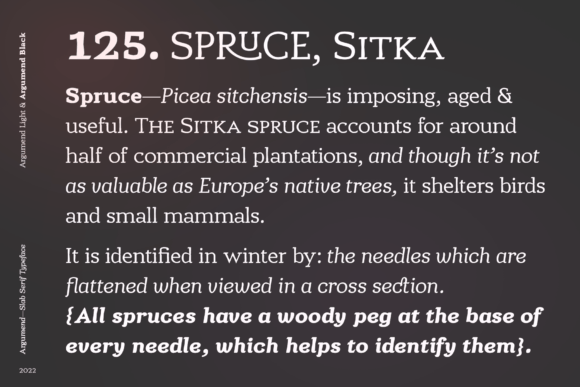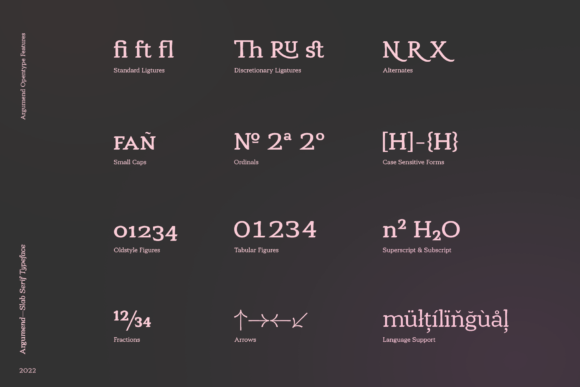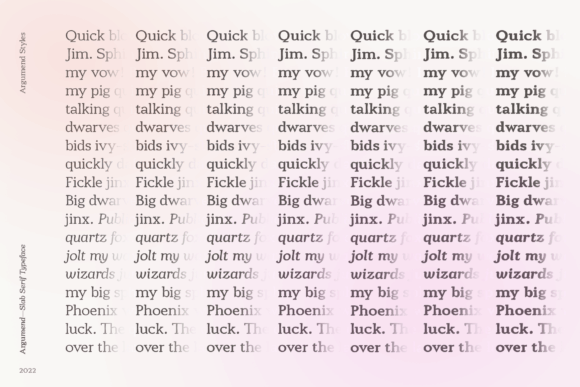
Unleashing the Power of Argumend Font
Have you ever been stuck in a creative rut, staring at a blank page with a looming deadline and a blank mind? I’ve been there, and I know how frustrating it can be. But what if I told you that there’s a font out there that can change the game for your next design project? Enter Argumend Font, a versatile slab serif typeface that’s about to become your new best friend.
With its wide range of Opentype features, Argumend Font offers endless possibilities for creating high-quality, attention-worthy text. From crafting strong headlines with its upper case ligatures to creating mindful body copy with its many weights and true italics, this font has got you covered. And the best part? It’s PUA encoded, making it easy to access all the glyphs and swashes you need to take your design to the next level.
Key Features of Argumend Font
- High-quality typography designed for creative projects, ensuring a professional look and feel.
- Unique characteristics include a modern and sleek design, making it perfect for use in digital design, print materials, and more.
Honest Review: Argumend Font
As a designer, I’m always on the lookout for high-quality design resources to elevate my creative projects. Recently, I came across the Argumend Font, and I’m excited to share my thoughts on it.
What works well: ✨ The Argumend Font is available for free download, making it a great addition to any designer’s toolkit. The font’s unique design and clean lines make it perfect for use in logos, branding materials, and even body text. I appreciate the transparent background, which allows for easy layering and manipulation in design software.
What doesn’t work so well: ⚠️ While the Argumend Font is a great addition to any design project, it’s not ideal for large blocks of text. The font’s design can become overwhelming when used extensively, making it better suited for headlines and titles.
Overall impression: I’m impressed with the Argumend Font’s versatility and high quality. It’s a great resource for designers looking to add a touch of sophistication to their creative projects. With its transparent background and free download option, it’s a transparent and convenient design resource.
- Perfect for logos, branding materials, and titles
Some common use cases for Argumend Font include creating titles and headings, overlaying text on images or videos, and adding a touch of creativity to presentations and reports.
Compared to Argumend Font, Open Sans is more versatile and widely used in various design projects. While Argumend Font has a unique, elegant feel, Open Sans is more neutral and suitable for a broader range of creative endeavors.